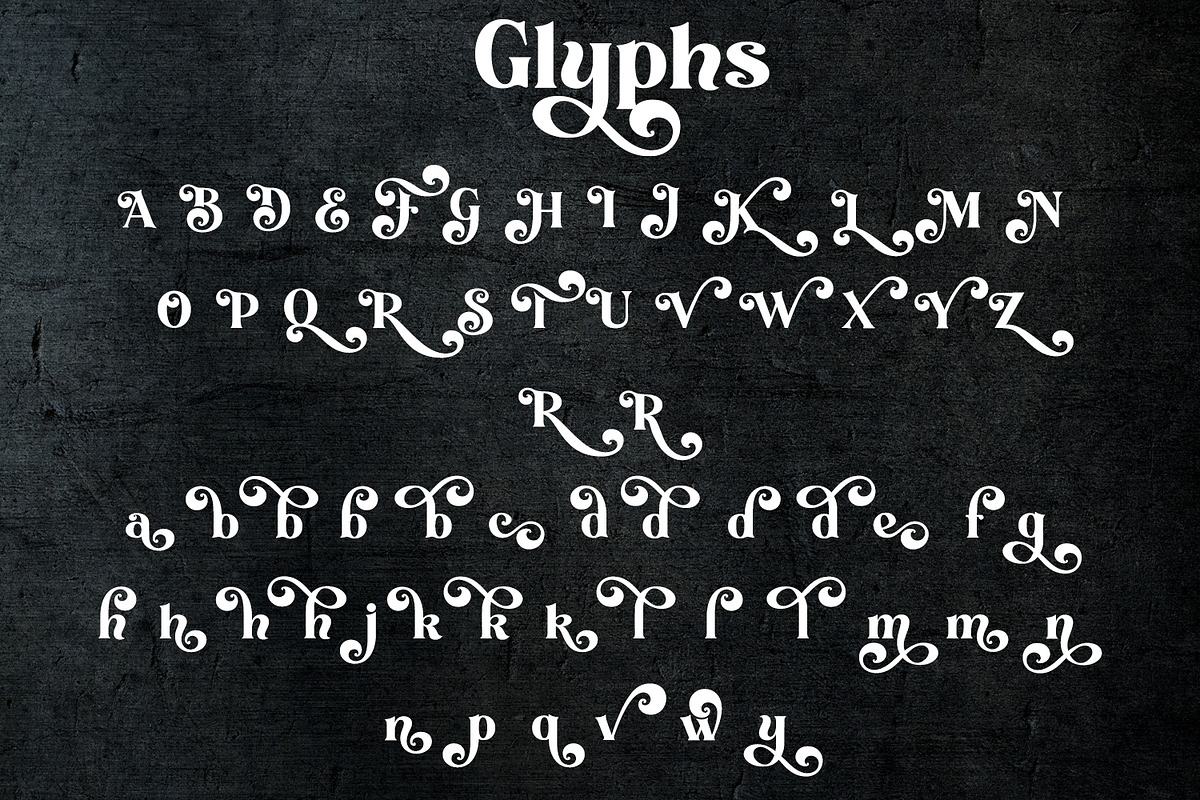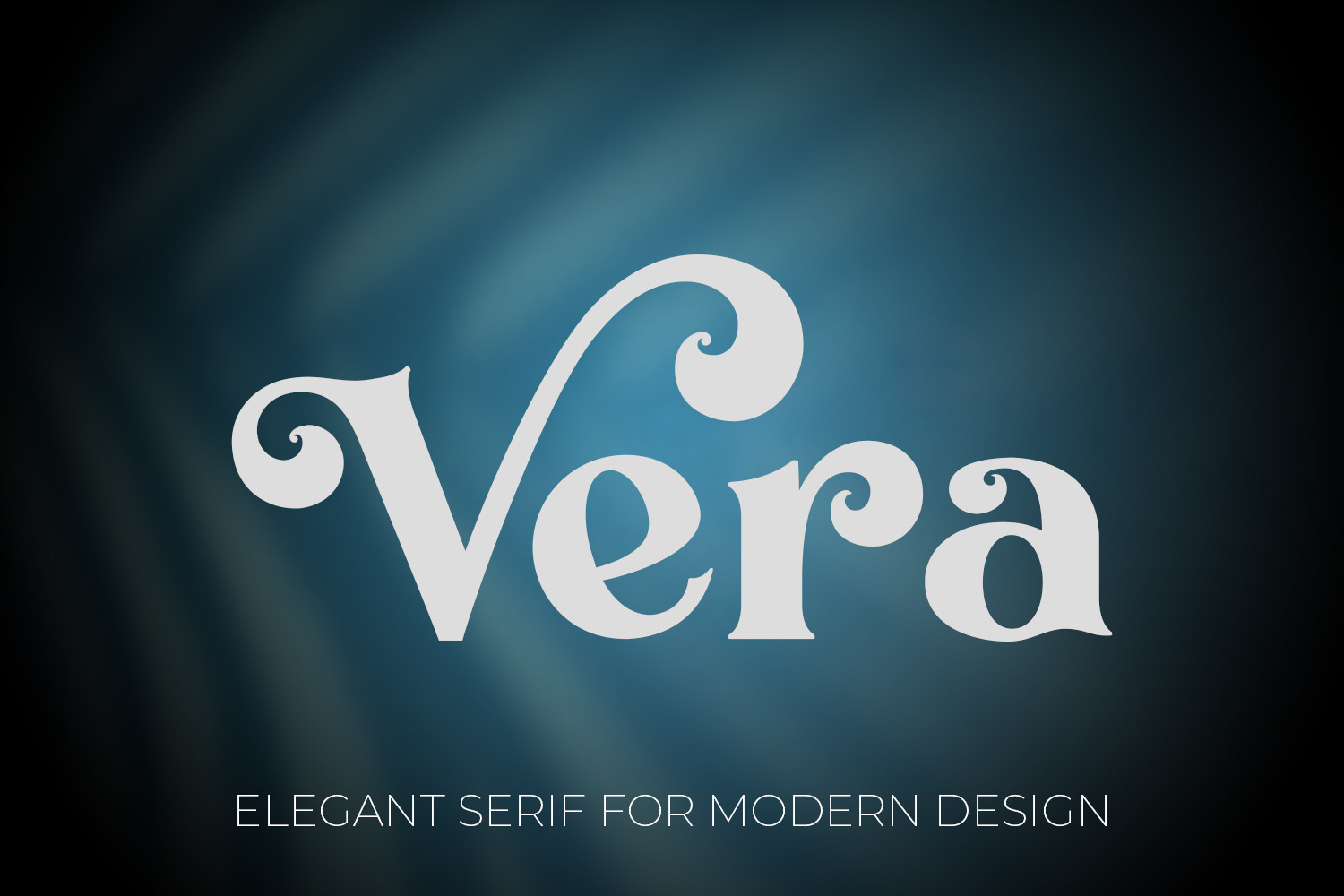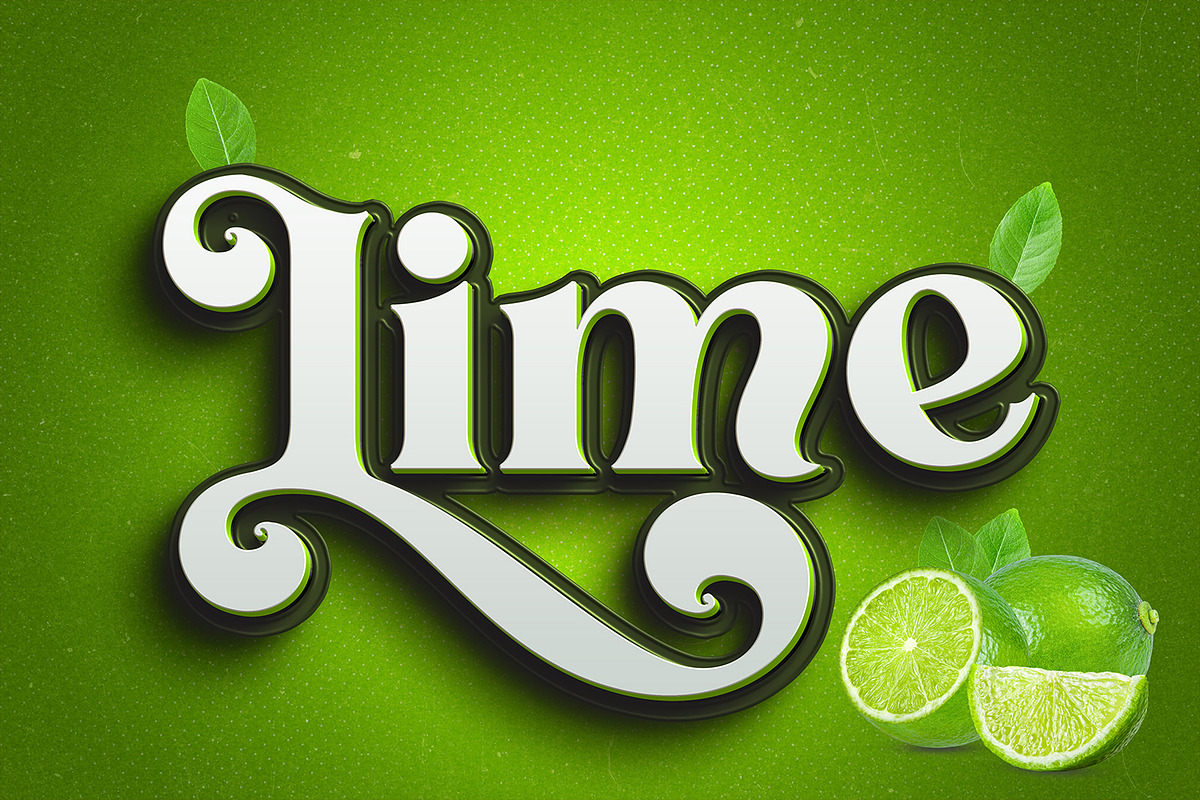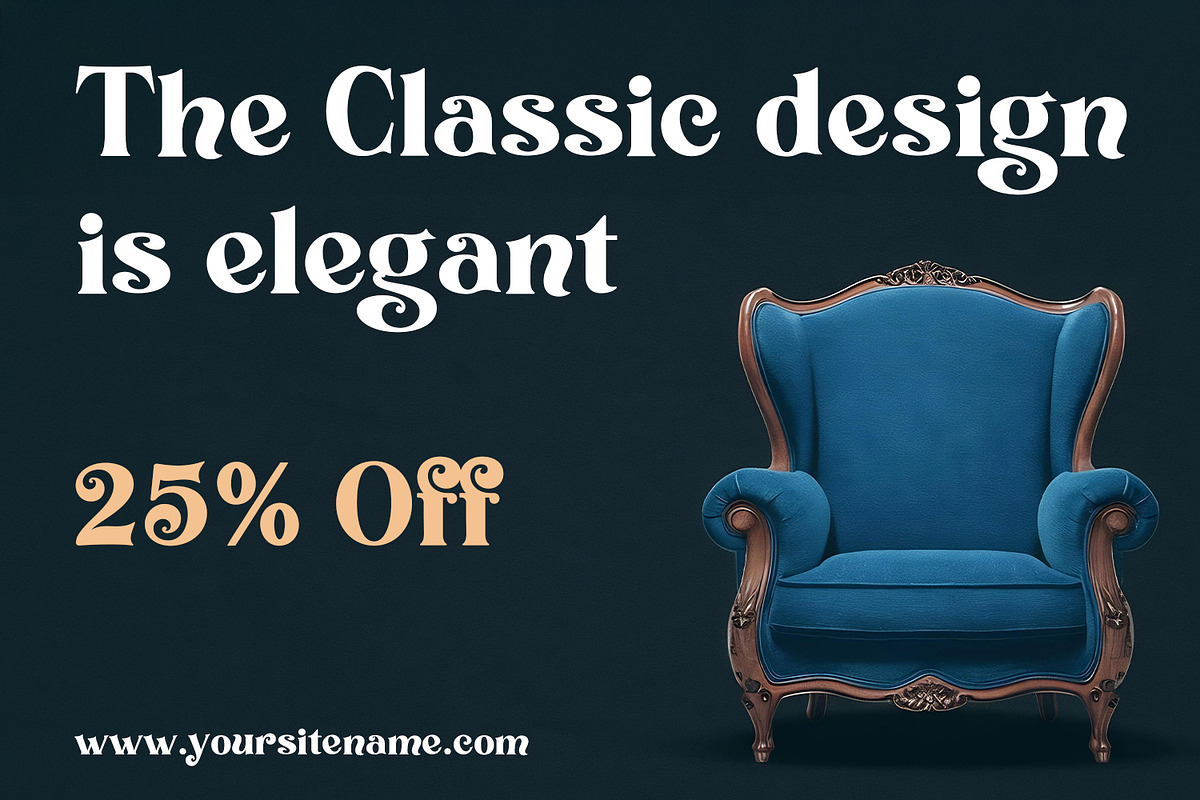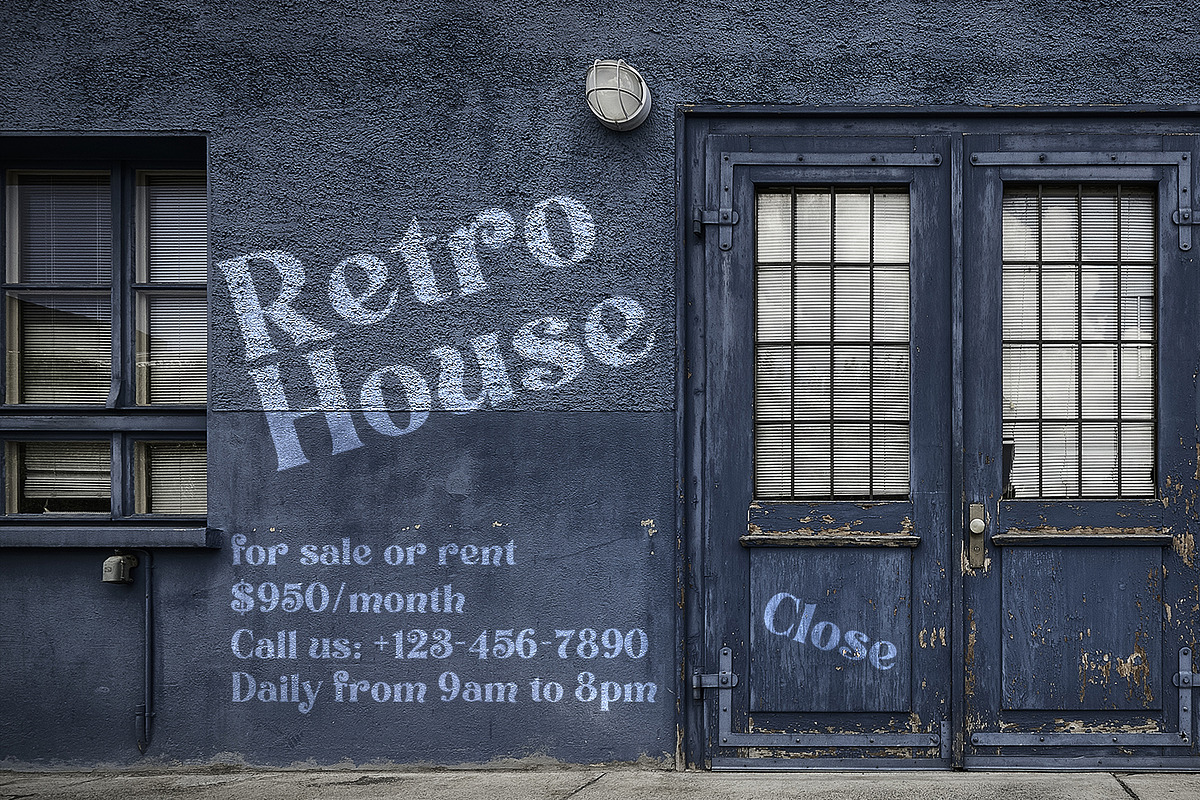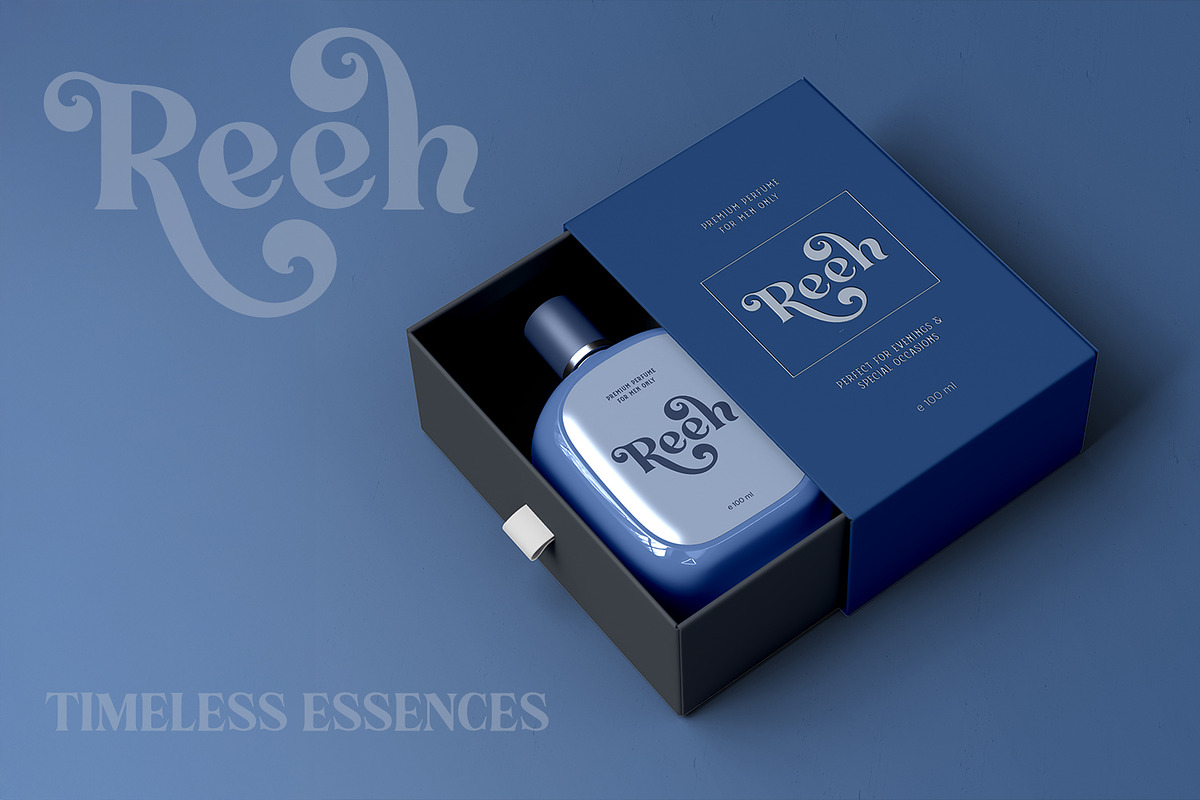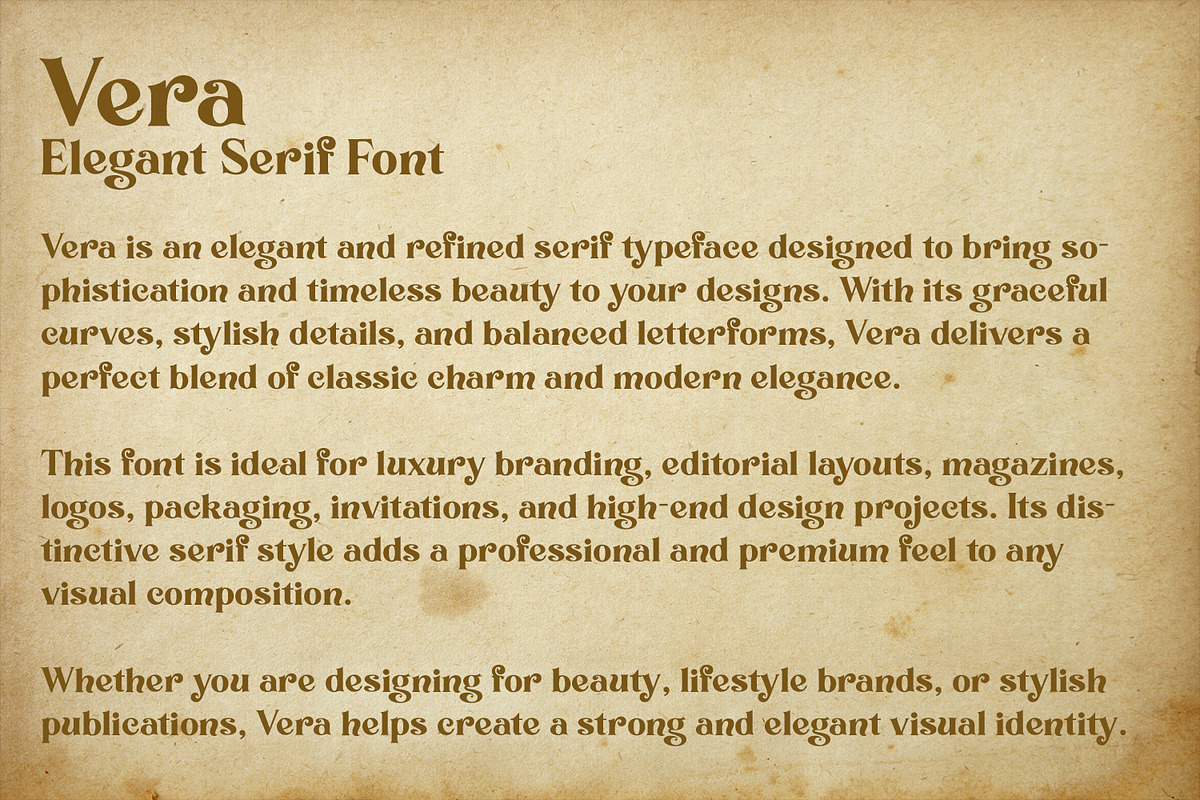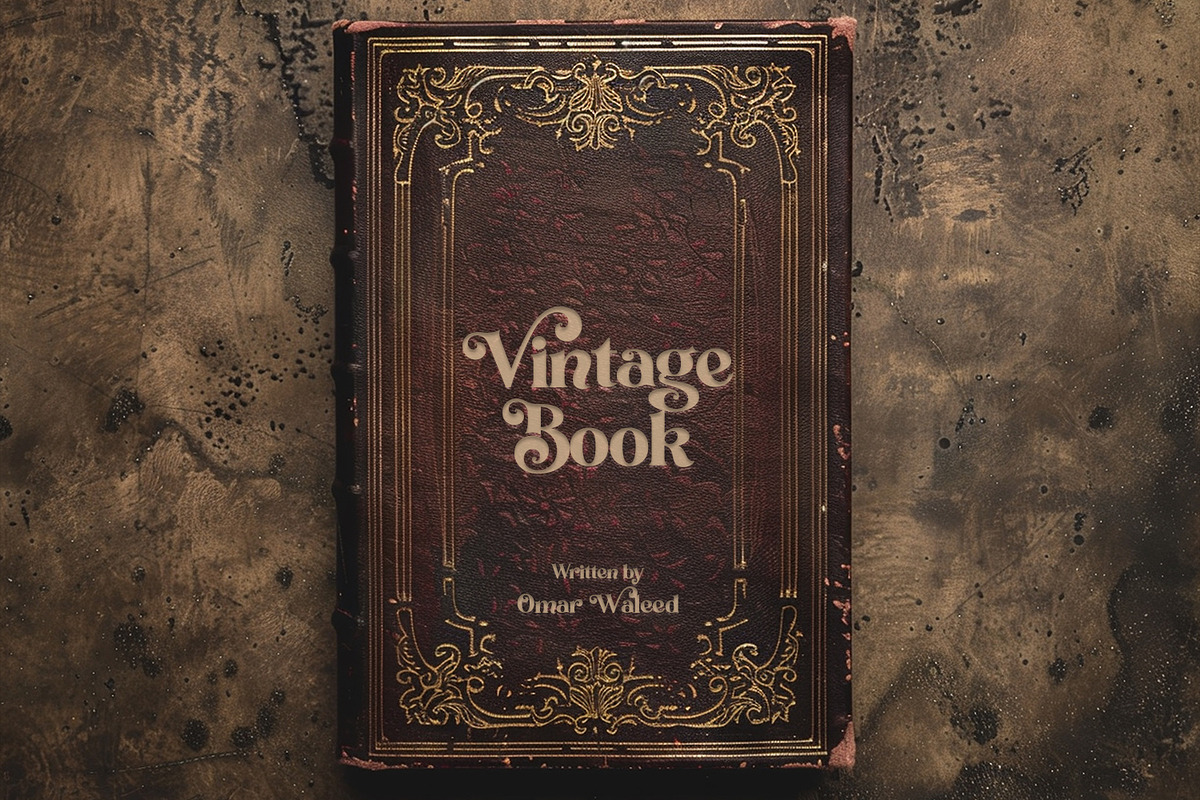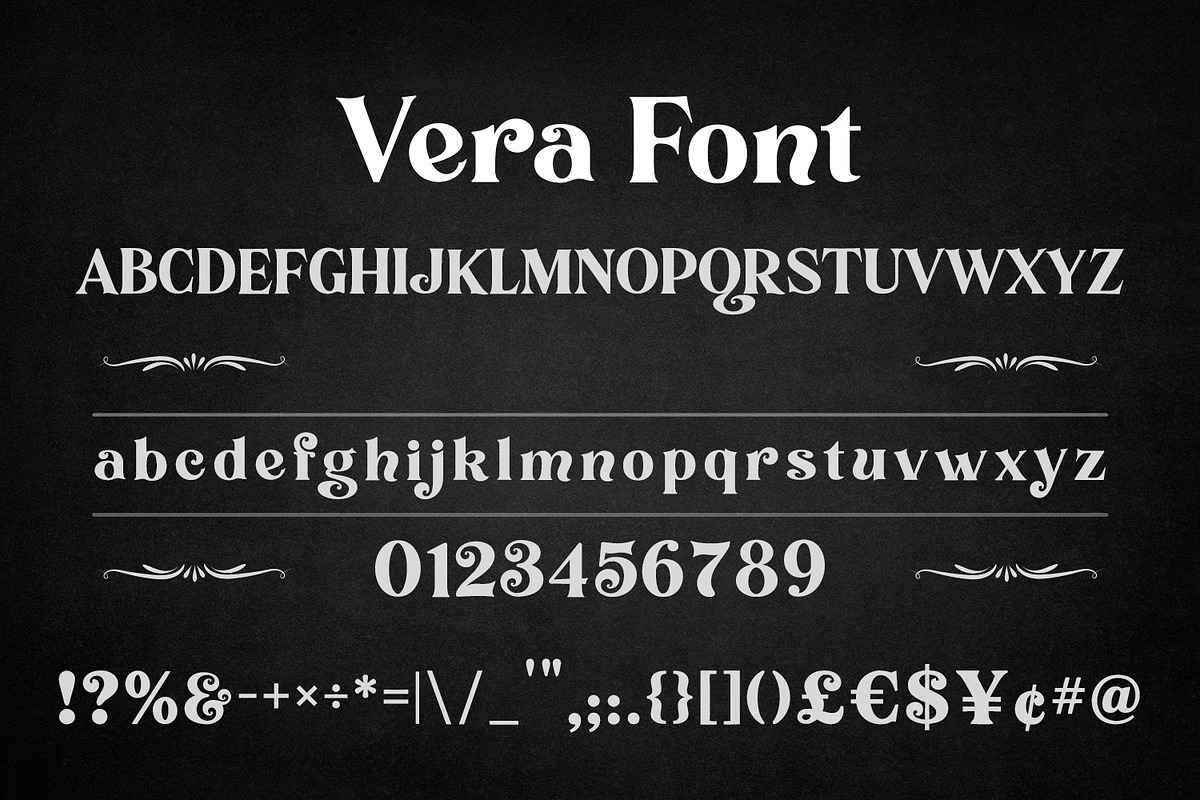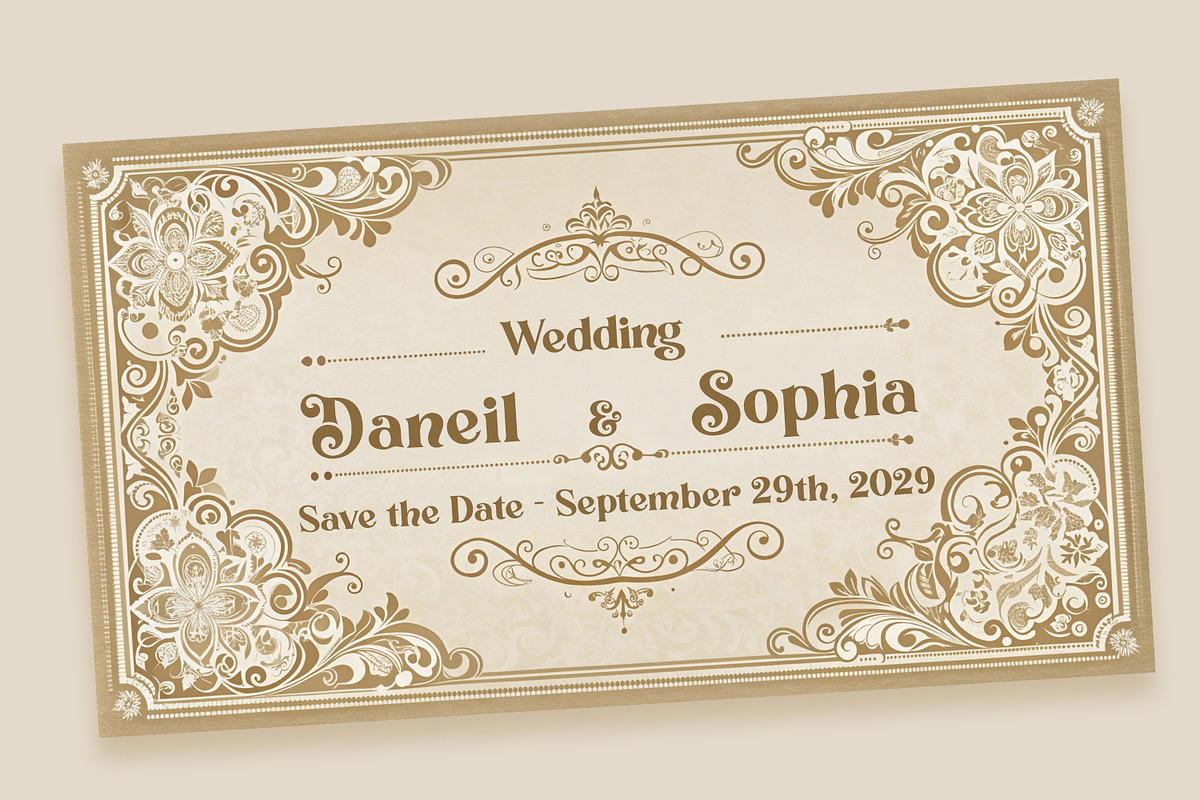
Vera – Elegant Luxury Serif Font
Vera is an elegant, luxury serif font designed to bring timeless sophistication and classic beauty to your creative projects. Featuring graceful curves, stylish swashes, and refined letterforms, Vera blends vintage charm with modern elegance to create a distinctive and premium typographic style.
This versatile typeface is perfect for branding, logos, editorial layouts, fashion magazines, packaging, wedding invitations, book covers, posters, and luxury product designs. Its decorative serif details and smooth curves make it ideal for high-end design projects that require elegance and personality.
Vera works beautifully for vintage themes, modern branding, and stylish typography compositions. Whether you are designing for fashion, beauty brands, boutique packaging, invitations, or premium advertising, Vera adds a professional and sophisticated touch to every design.
The font includes uppercase and lowercase letters, numbers, punctuation, and decorative characters, allowing designers to create unique typographic layouts with style and flexibility.